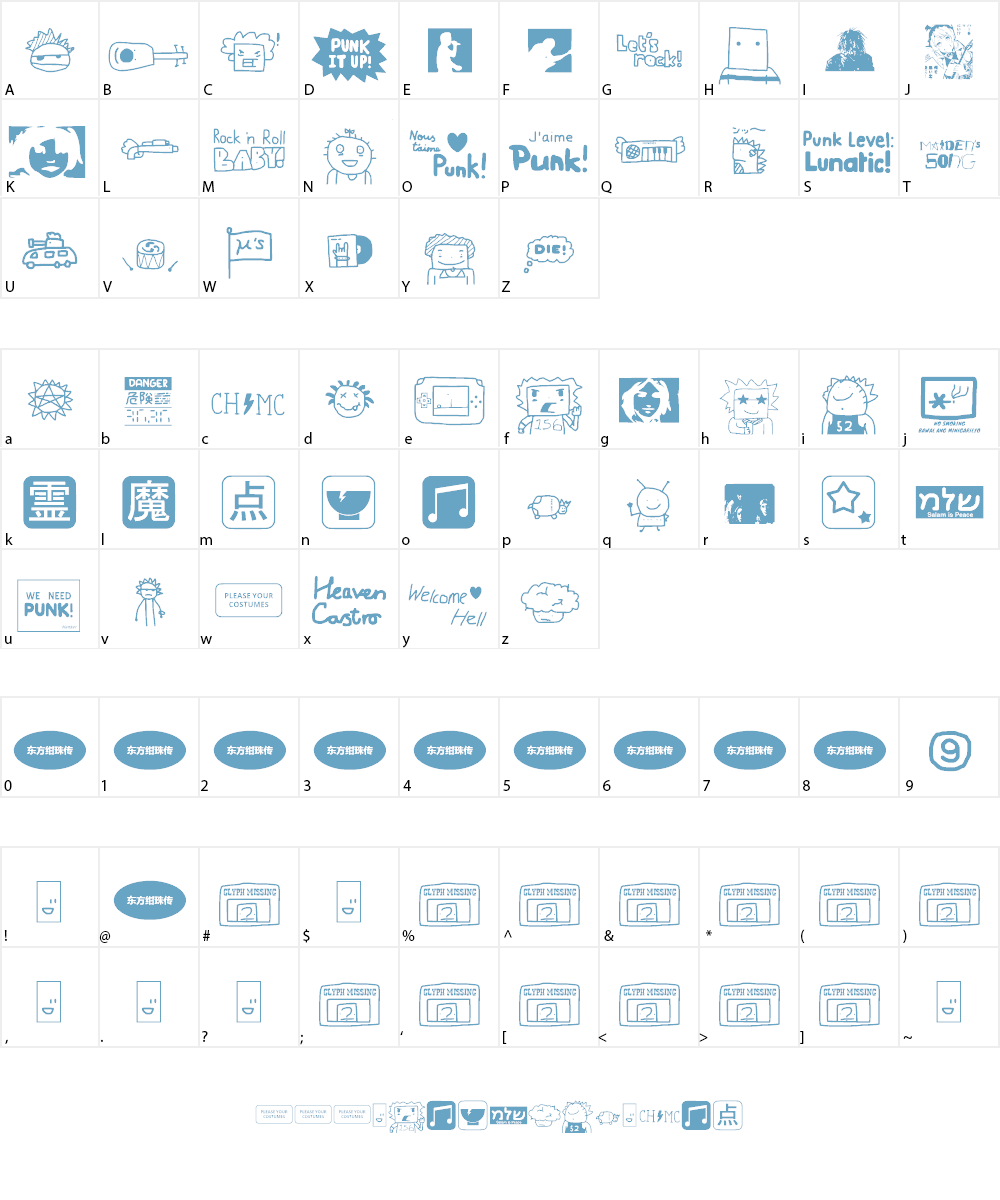
A collection of many punk-themed pictures. Most of the pictures were drawn freely and digitized, some were auto traced using the auto tracing tool and few used to construct freely. It contains 52 (mostly) punk-themed pictures, and it's best used at large sizes. Type 9 for nineball, Cirno's nickname. You can't use a font for a trademark or a logo. Unlike the original font, no OpenType format available for the time.